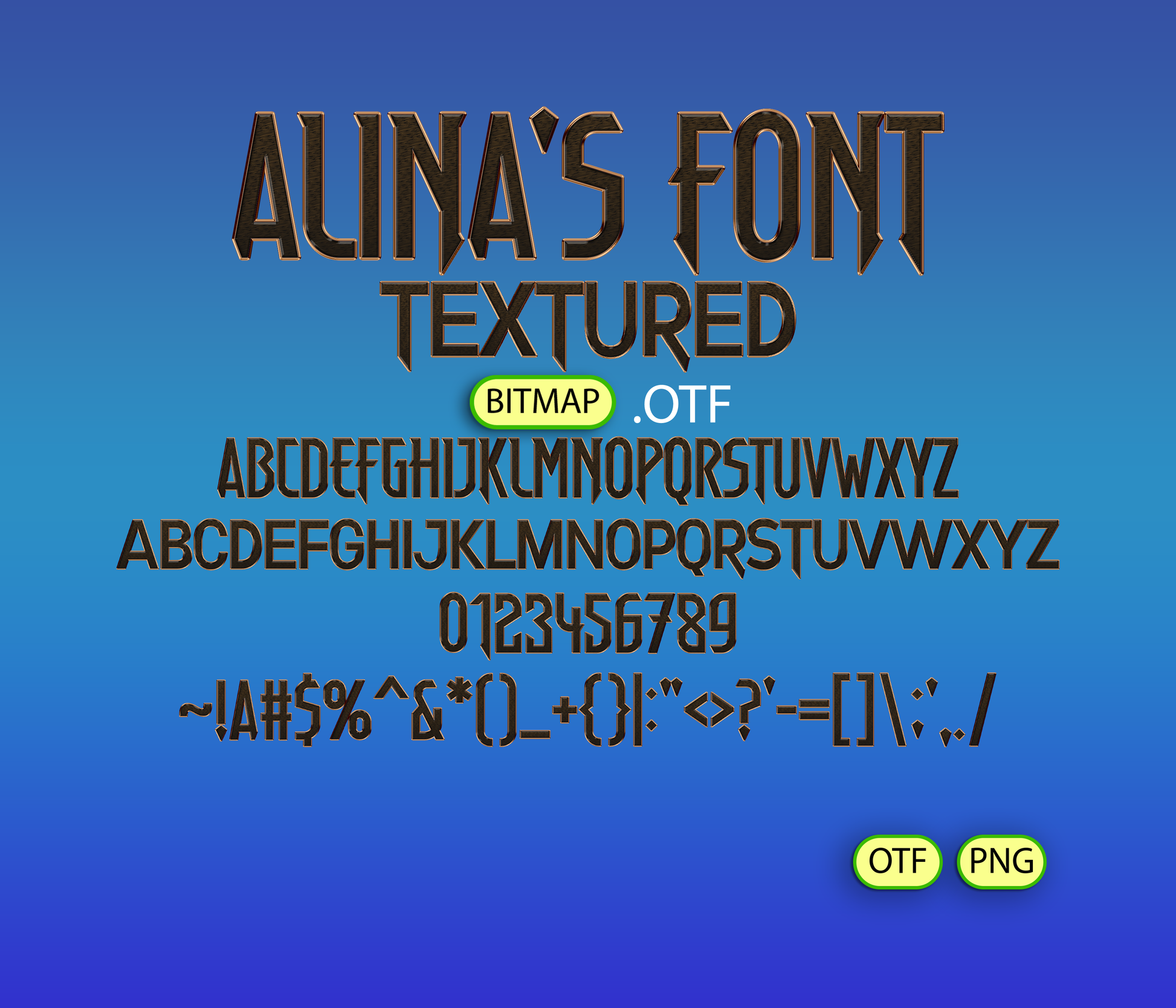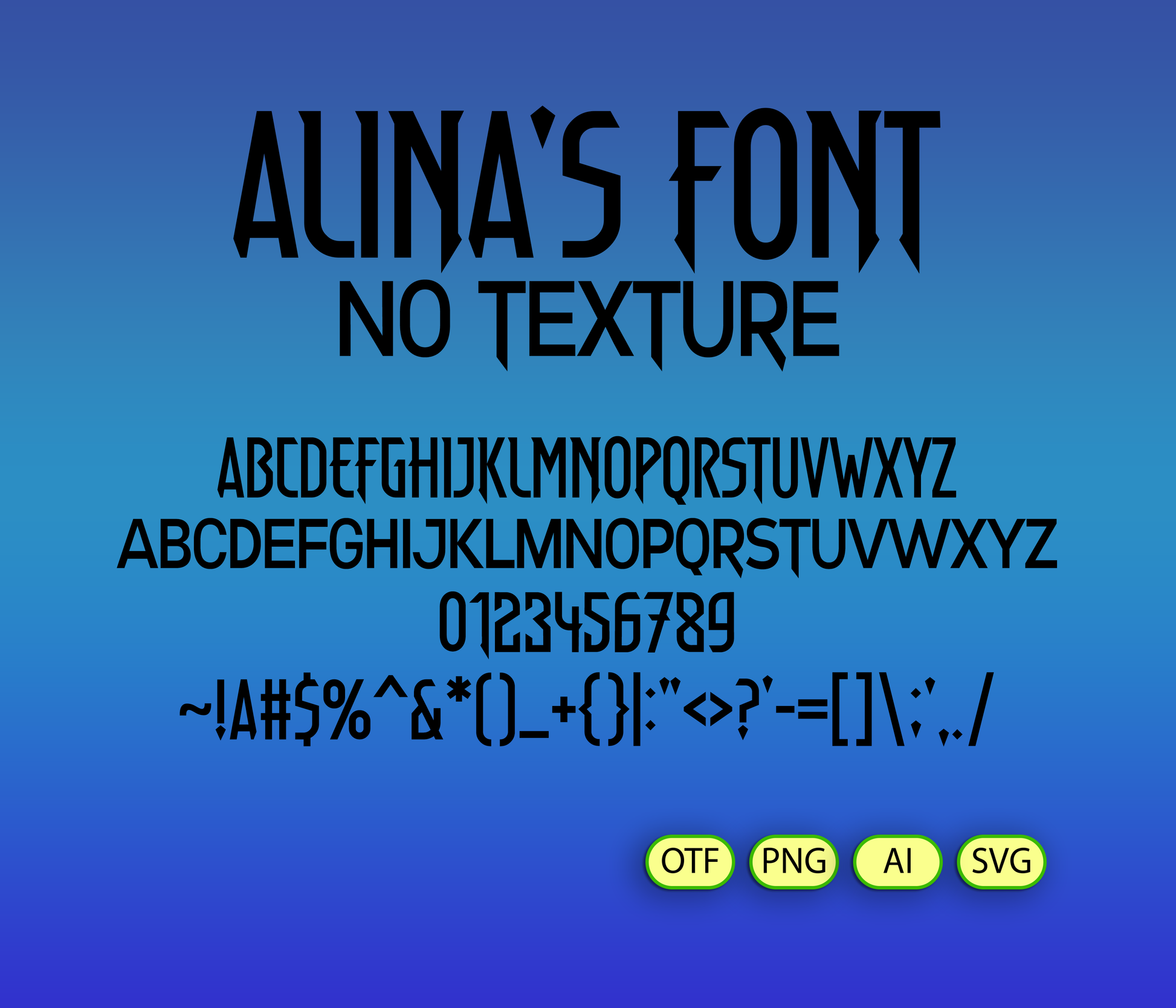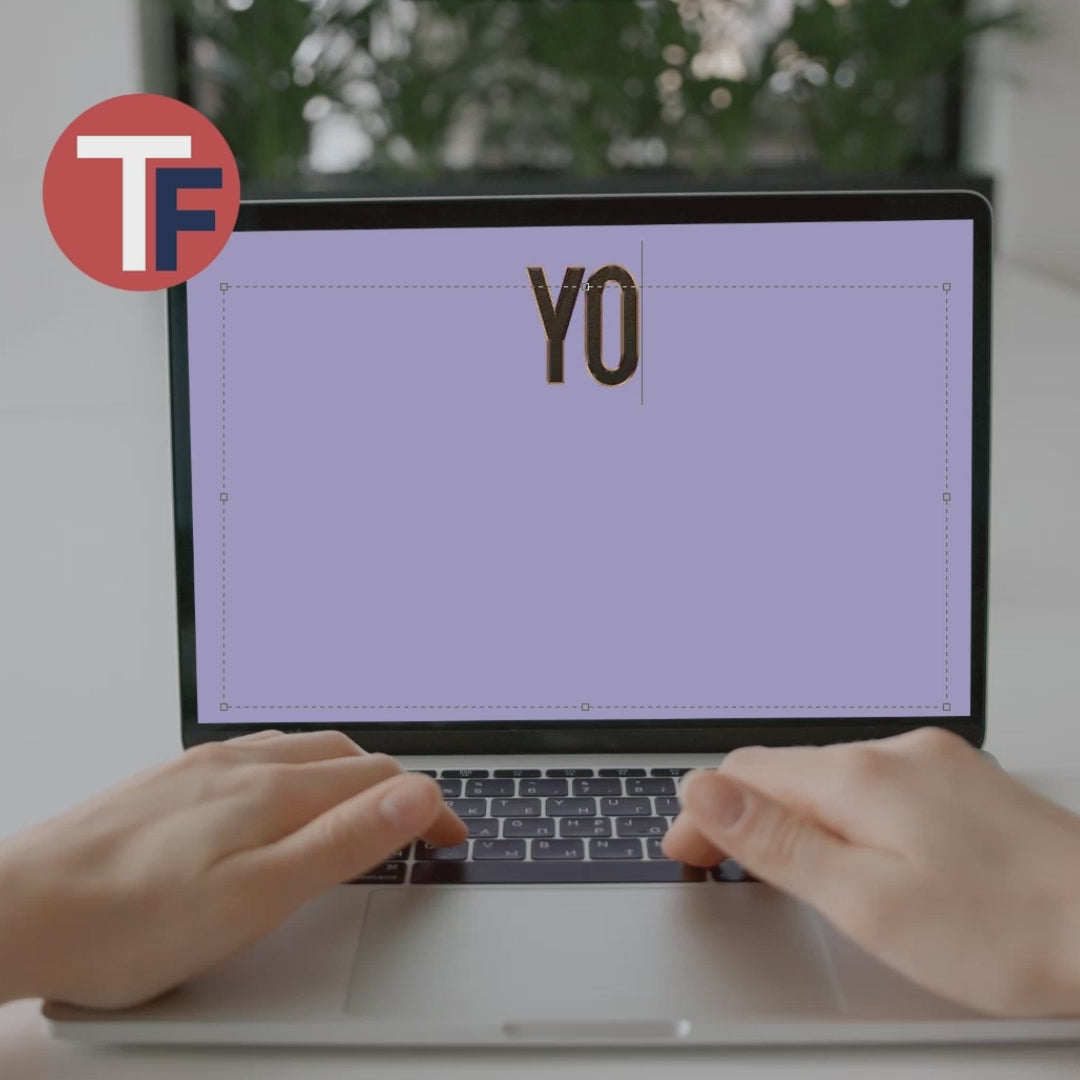
Wilderness Tracker Font Textured
Wilderness Tracker Font: The Call of the Wild in Every Letter Kraven The Hunter Font
Immerse yourself in the untamed world of a legendary hunter with a font that captures the essence of an intrepid adventurer. This typeface is not just a collection of letters; it's an homage to a relentless pursuit, a deep connection with the wild, and complex morality. Each character in the font is imbued with the spirit of adventure, the thrill of the hunt, and the raw, primal energy that defines a skilled tracker. It's designed for those who dare to venture into the heart of the jungle, both in design and storytelling.
What font is the Wilderness Tracker font?
In pursuit of the perfect Wilderness Tracker font, one discovers a meticulously crafted typeface that mirrors the distinctive elements of a rugged hunter's world. This font goes beyond mere replication, offering an extensive character set that captures the essence of the wild, the rugged, and the adventurous. The letters are designed with precision to reflect a robust and fearless nature, with sharp edges and bold lines that evoke a hunter's instinct and the intricate balance between man and beast. It's a font that speaks to the soul of the wilderness, ready to bring a touch of the wild to any project.